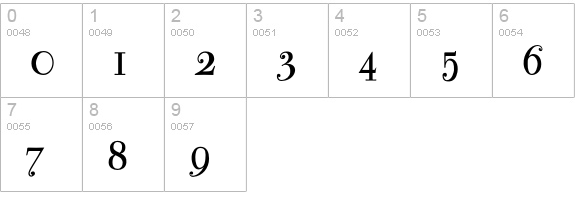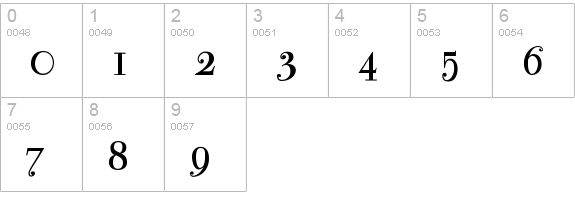
BodoniClassic-AdRoman is a timeless and elegant font that exudes sophistication and style. Its classic serif design and refined details make it a perfect choice for projects that require a touch of luxury and finesse. The sharp contrast between thick and thin strokes gives this font a modern edge while still maintaining its traditional roots. What makes BodoniClassic-AdRoman even more appealing is that it is available for free download at FontsMarket.com. This means that you can easily access this stunning font for your personal or commercial projects without any cost. Whether you are designing a logo, creating a poster, or crafting a wedding invitation, BodoniClassic-AdRoman is sure to elevate your design and leave a lasting impression. Download now and add a touch of sophistication to your next project with this exquisite font.